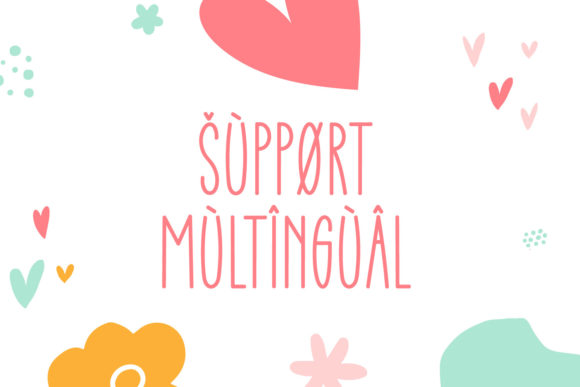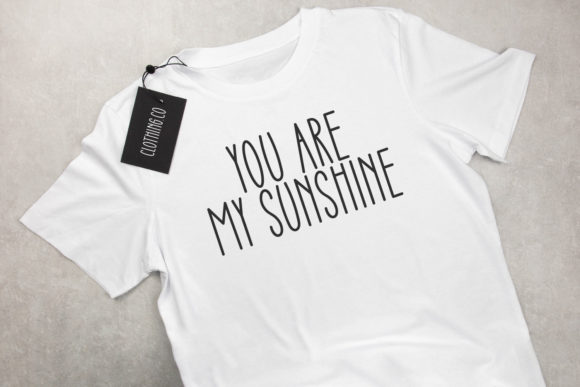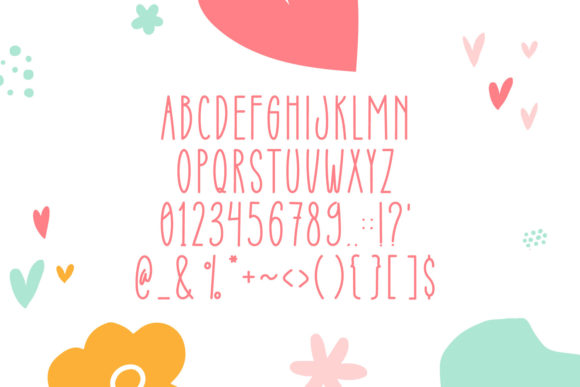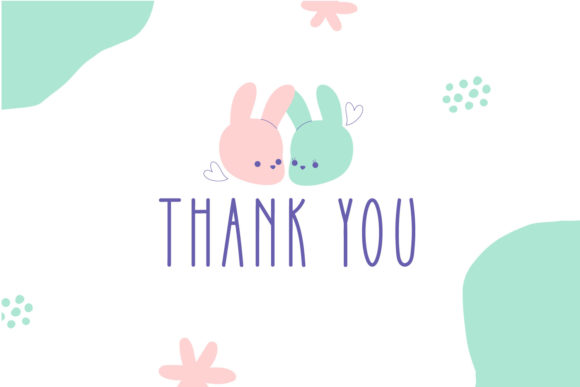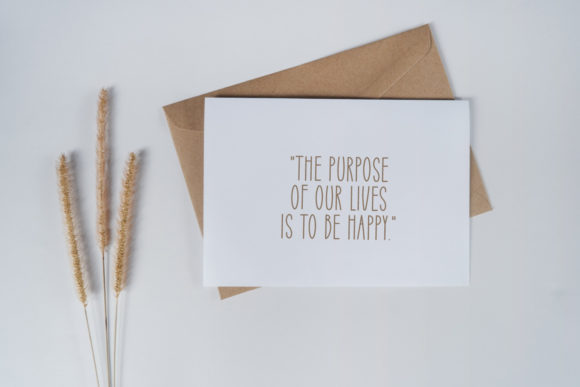
Everything Font
About Everything Font
Everything is a charming and versatile handwritten font that adds a touch of whimsy and elegance to any design. With its thin and tall letterforms, this font exudes a sense of lightness and delicacy, making it suitable for a wide range of projects.
Whether you’re working on branding, invitations, stationery, social media posts, or any other creative endeavor, Everything will bring a unique and elevated look to your designs. Its playful and stylish appearance can make your projects stand out and leave a lasting impression on your audience.
The thin and tall nature of Everything gives it a modern and sophisticated vibe, making it perfect for fashion, beauty, and lifestyle-related designs. It can also add an element of elegance and refinement to wedding invitations, special occasions, and feminine-themed projects.
The versatility of Everything extends beyond its appearance. It is designed to be an asset to your font library, meaning it can be easily paired with other fonts to create harmonious typographic compositions. Whether used as a headline font or for body text, Everything will add a touch of charm and uniqueness to your designs.
Embrace the potential of Everything to elevate your creations. Its thin and tall letterforms, combined with its playful and elegant style, make it a valuable addition to any design project.